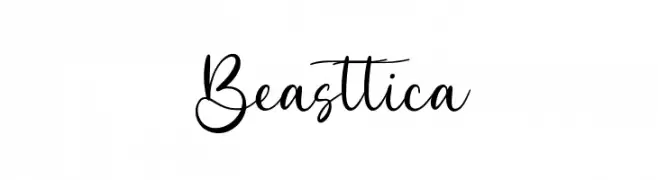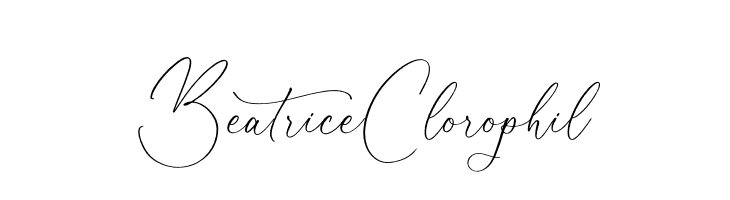
A playful, hand-drawn font with a cartoonish and whimsical style.
A bold, italicized script font with a playful, cartoonish style.
A playful, handwritten-style font with rounded, uniform strokes.
A playful, bold font with rounded characters and a 3D shadow effect.
A playful, decorative font with bold, rounded letters encased in circular outlines.
A playful, rounded font with a whimsical and friendly aesthetic.
A playful, rounded font with a friendly and approachable style.
A playful, bold, and rounded font with a hand-drawn feel.
A playful, hand-drawn font with bold, rounded characters and a whimsical style.
A playful, bold handwritten font with a smooth, flowing style.
A playful, hand-drawn font with a whimsical and informal style.
A playful, rounded font with smooth curves and a friendly appearance.
Hand-drawn Halloween doodle font with cute, playful icons.
A playful, bold, and cartoonish font with decorative elements.
A playful, hand-drawn font with bold strokes and a whimsical style.
A playful, inline decorative font with a bold and dynamic style.
Playful handwritten font with tall, narrow characters.
A playful and whimsical script font with flowing, cursive letterforms.
A playful and romantic script font with elegant curves and whimsical swirls.
A bold, playful font with a hand-drawn, cartoonish style.
A playful handwritten font with a whimsical and creative style.
A bold, playful font with rounded, cartoonish letters.
A playful, hand-drawn font with characters in irregular squares, perfect for fun and creative projects.
A playful, italicized font with a notebook page background, ideal for creative and informal projects.
A playful, handwritten font with bold, smooth strokes and a whimsical style.
A playful and whimsical font with rounded, bold letterforms.
( Fonts by Letterative Studio )
Playful handwritten font with rounded, casual strokes.
( Fonts by One Design - Personal-use only. For commercial use please contact owner. )
A playful, bold font with a whimsical, hand-drawn style.
( Fonts by Edy Wiyono - Personal-use only. For commercial use please contact owner. )
A playful, rounded font with a whimsical and friendly style.
A playful, bold font with rounded, thick letters and a whimsical style.
A playful, hand-drawn script font with whimsical decorative elements.
A playful, handwritten font with a friendly and whimsical style.